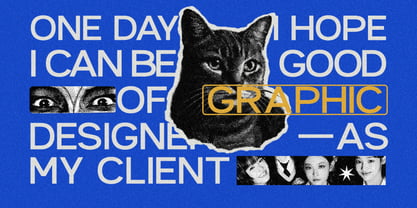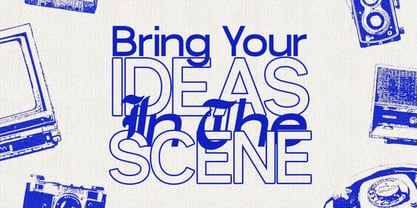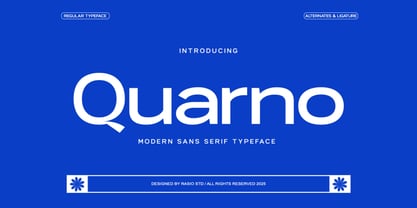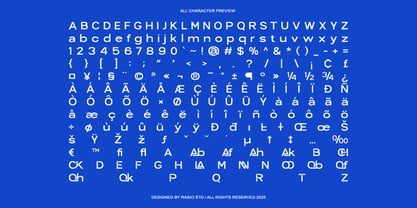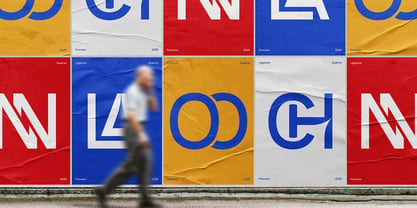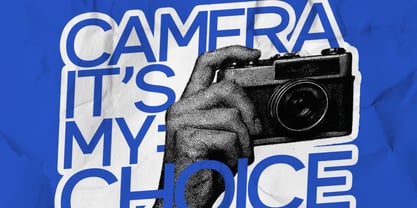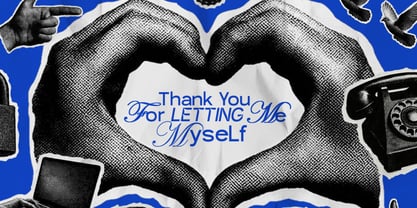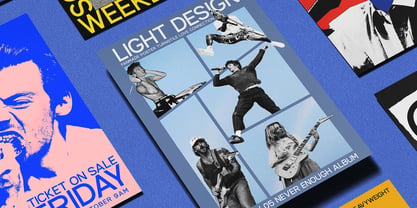
Quarno
por Rasio Studio
La familia tipográfica Quarno fue diseñada por Fajar Indra y publicada por Rasio Studio. Quarno contiene 1 estilos. Más información sobre esta familia
Quarno is a modern sans serif typeface designed with a refined geometric structure and versatile aesthetics. It features clean lines, well-balanced letterforms, and smooth curves, making it ideal for contemporary branding, editorial layouts, UI/UX interfaces, and digital projects. Quarno’s clarity and structure make it a prime choice for modern branding, editorial design, clean logo work, UI/UX projects, web interfaces, startup identities, corporate stationery, product packaging, and digital content.
Diseñadores: Fajar Indra
Fundición: Rasio Studio